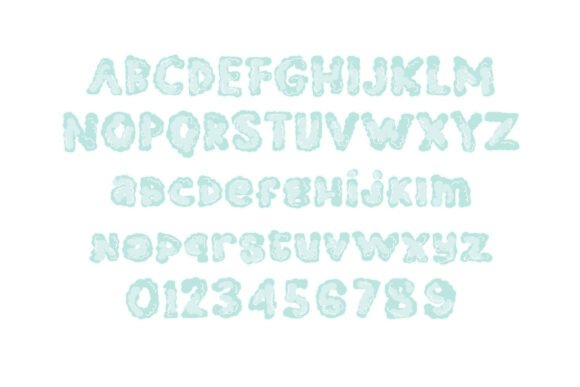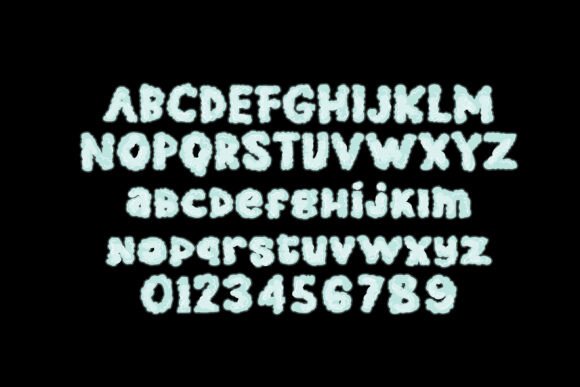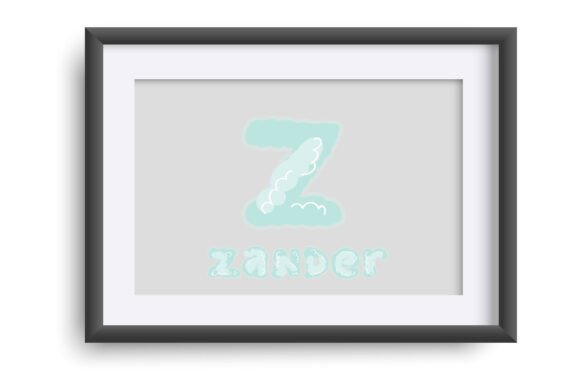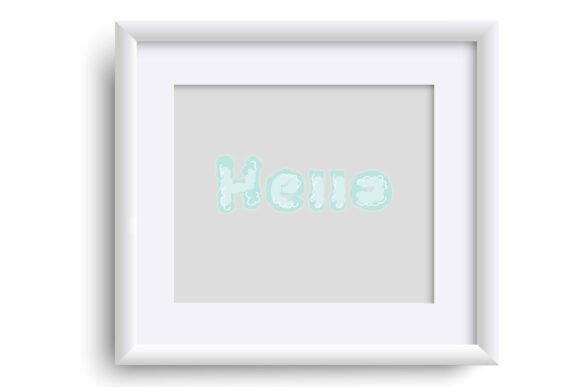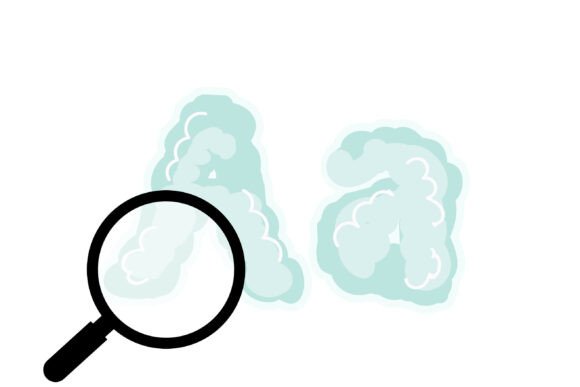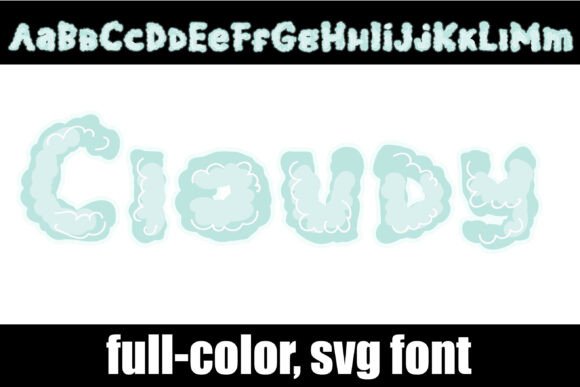
Elevate Your Designs with Cloudy Font: A Whimsical Full-Color SVG Typeface
Are you looking for a font that can add a touch of magic to your designs? Look no further than Cloudy, a full-color SVG font that embodies the soft, ethereal beauty of a summer sky. This charming typeface is perfect for designers and crafters who want to create dreamy, imaginative, and peaceful designs that capture the essence of whimsy and wonder.
The Inspiration Behind Cloudy Font
Cloudy Font is inspired by the organic, puffy shapes of cumulus clouds that dot the sky on a warm summer day. The font’s gentle palette of sky blue and misty white hues evokes a sense of serenity and calmness, making it an ideal choice for designs that require a soothing and peaceful touch. The hand-drawn letterforms are carefully crafted to mimic the soft, fluffy texture of clouds, giving Cloudy Font a unique and distinctive look.
What Makes Cloudy Font Special?
Cloudy Font is a high-quality SVG font that boasts delicate transparency effects and subtle textures built directly into every character. This means that the font’s intricate details and nuanced shading are preserved, even when scaled up or down. The result is a font that looks stunning in any design, from nursery wall art to social media headers.
Cloudy Font is an exceptional choice for a wide range of design projects, including:
• Nursery wall art: Add a touch of whimsy and wonder to nursery decor with Cloudy Font’s soft, dreamy lettering.
• Dreamy children’s book titles: Create enchanting book titles that transport readers to a world of imagination and fantasy.
• Wellness branding: Convey a sense of peace and tranquility with Cloudy Font’s soothing, ethereal aesthetic.
• Imaginative social media headers: Elevate your social media presence with Cloudy Font’s airy, whimsical charm.
Why Choose Cloudy Font?
Cloudy Font offers a unique combination of characteristics that make it an attractive choice for designers and crafters:
• Handcrafted wonder: Cloudy Font’s hand-drawn letterforms give it a personal, crafted feel that’s hard to replicate with generic fonts.
• Airy tranquility: The font’s light, airy texture and soothing color palette evoke a sense of peacefulness and calmness.
• Versatility: Cloudy Font is suitable for a wide range of design projects, from digital designs to print materials.
• High-quality SVG: The font’s SVG format ensures that it remains crisp and clear, even when scaled up or down.
Tips for Using Cloudy Font
To get the most out of Cloudy Font, here are some tips to keep in mind:
• Experiment with colors: While Cloudy Font’s sky blue and misty white hues are beautiful on their own, don’t be afraid to experiment with other colors to create unique effects.
• Play with textures: Cloudy Font’s subtle textures can add depth and interest to your designs. Try combining it with other textures for added visual interest.
• Use it sparingly: Cloudy Font’s whimsical charm can be overwhelming if overused. Use it sparingly to create visual interest and emphasis.
Cloudy Font is a unique and captivating full-color SVG font that can elevate your designs to new heights. With its soft, ethereal beauty and whimsical charm, it’s perfect for designers and crafters who want to create peaceful, imaginative, and dreamy designs. Whether you’re designing for a nursery, a children’s book, or a wellness brand, Cloudy Font is an exceptional choice that delivers a sense of handcrafted wonder and airy tranquility to every word.